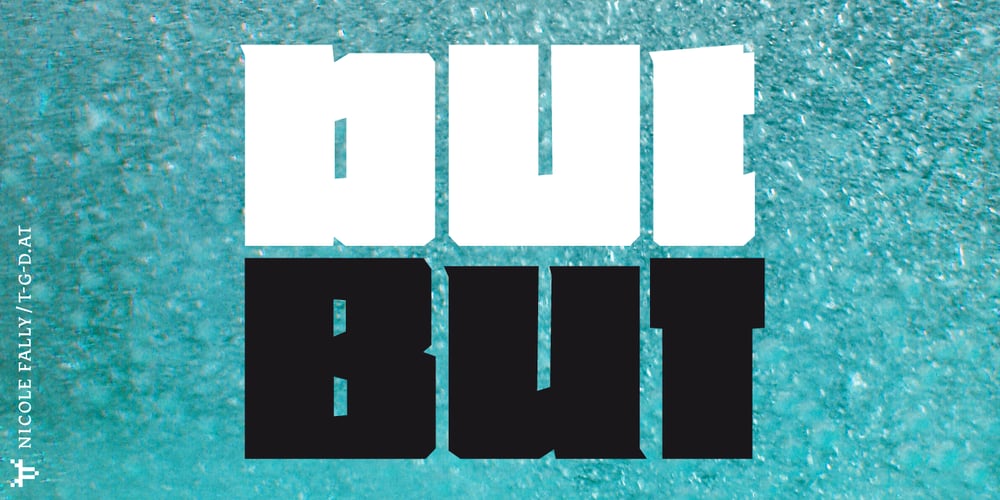
But font
But Font Family was designed by Nicole Fally and published by Nicole Fally. But contains 1 styles and family package options. Bold, black and square. But was first drawn as a logotype for the magazine “BUT – Bilder und Texte” (pictures and texts) which was published by an experimentally-oriented non-commercial initiative. In consideration of the unusual dimensions of the magazine (6 x 14 cm / 2,4 x 5,5 inch), I decided to fill as much space as possible with the body of type. This formal idea refers to the meaning of the title by blurring the border between legible letters and abstract shapes. Because of its origin, But is ideal for short messages in headline point size. Despite its blocky shapes, But creates a friendly atmosphere. The details are as playful as the restrictions that are given by the concept allow them to be. Punctuation marks and other special characters contrast the boldness of the design since they are matching the thin parts of upper- and lowercase letters. This also avoids gaps when longer texts are set. But is available in open type format and has an extended character set (Latin extended A). Two sets of numerals, one matching the x-height and another one matching the cap-height, are provided.